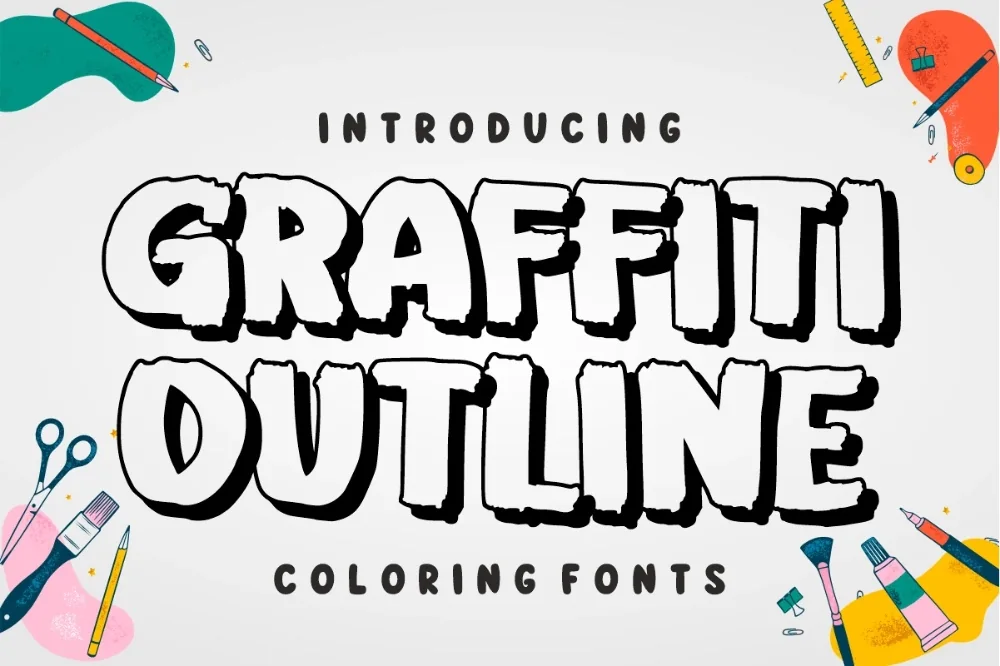
Hollow Outline Graffiti Font
If you have been hunting for a outline graffiti font that does not look like every other download on the internet, this one earns its place. Outlines only, waiting for whatever you want to pour inside. The most flexible starting point in the whole collection.
Letters are drawn as clean closed paths with an even stroke and no fill, so you can drop in colour, photographs or patterns behind the type. Corners are rounded just enough to avoid harsh points.
Built for colouring pages, layered posters, photo-filled headlines, and window vinyl.
One practical note: set a test word at the size it will actually be printed before you commit to it, because street lettering behaves very differently at poster scale and on a label.